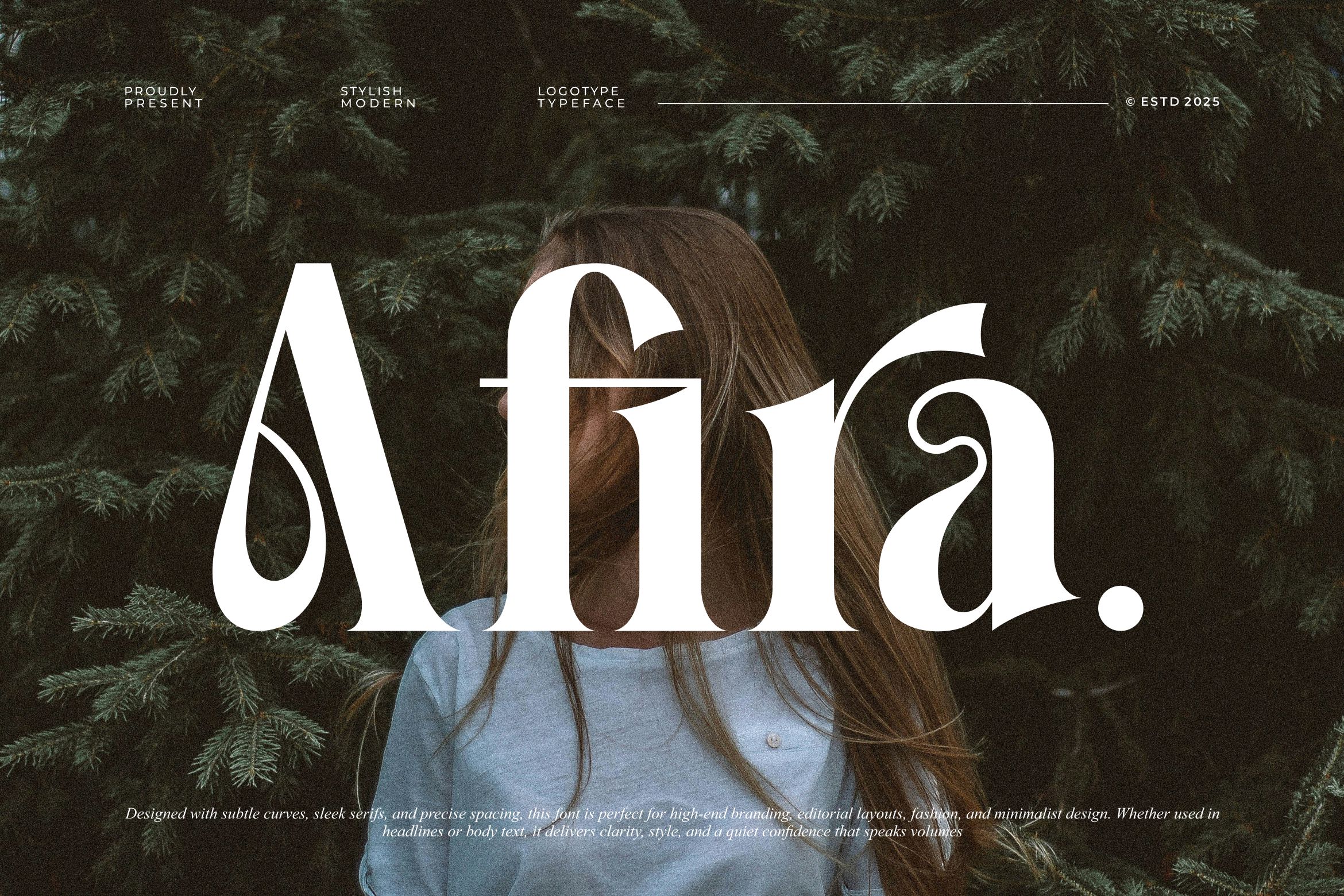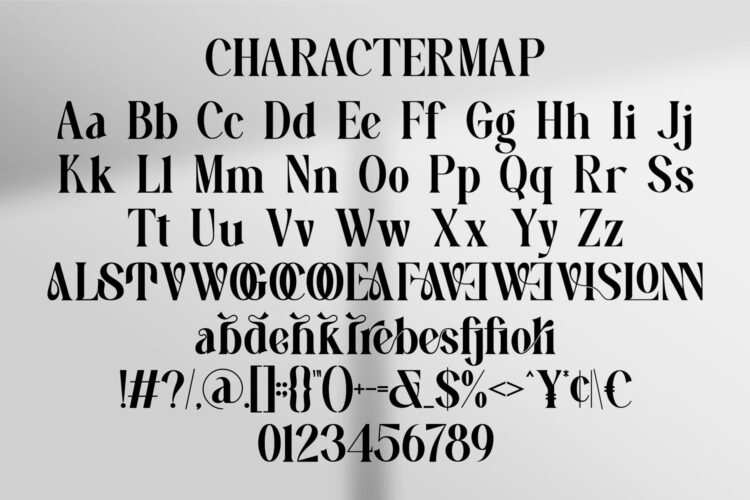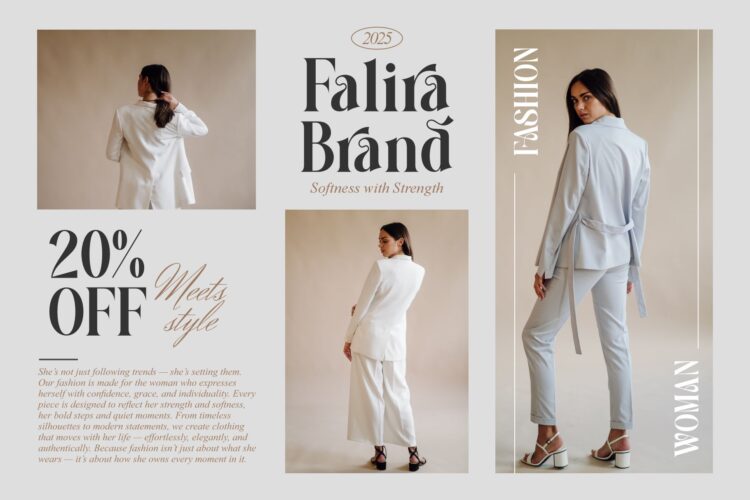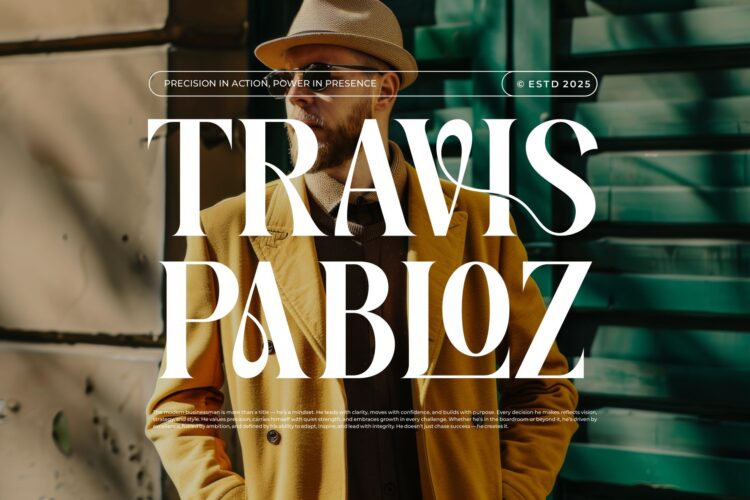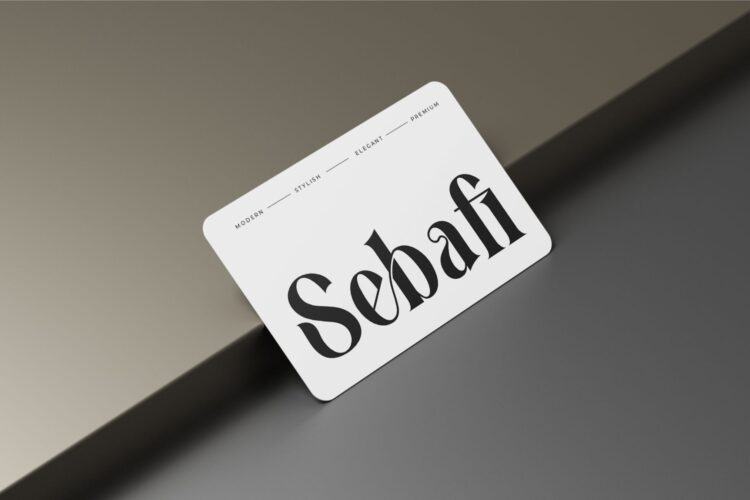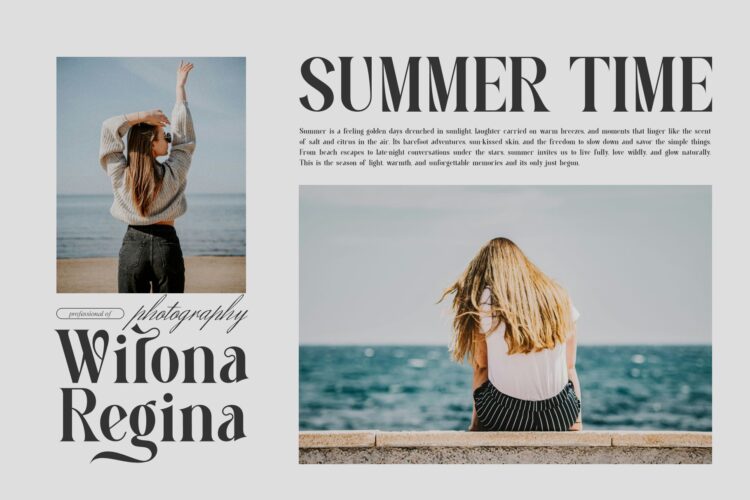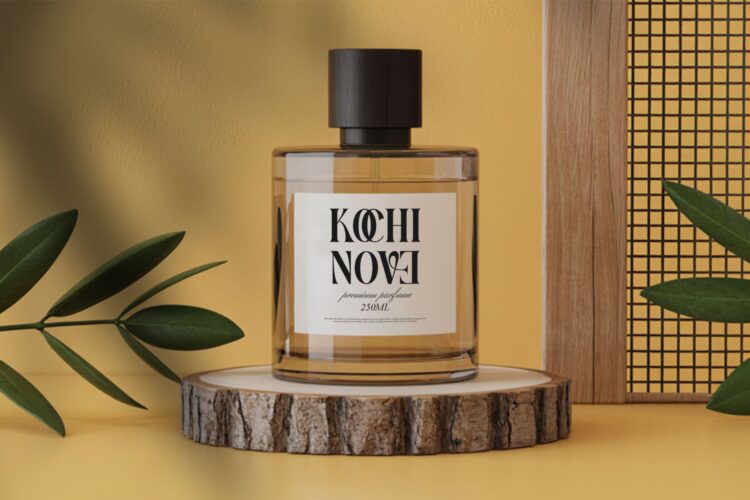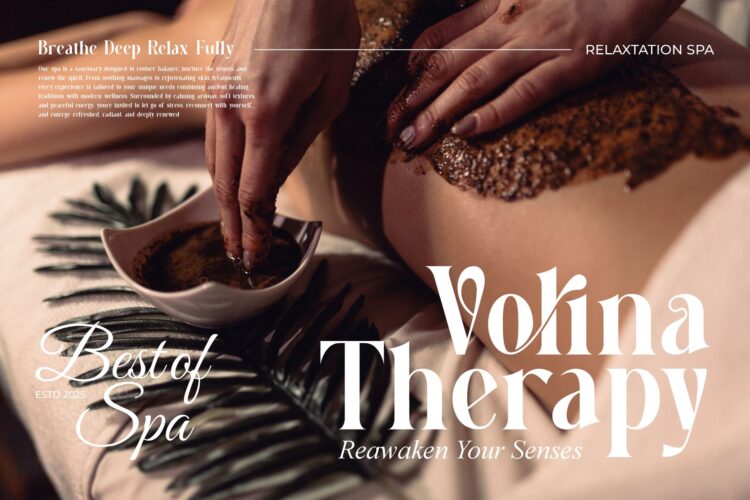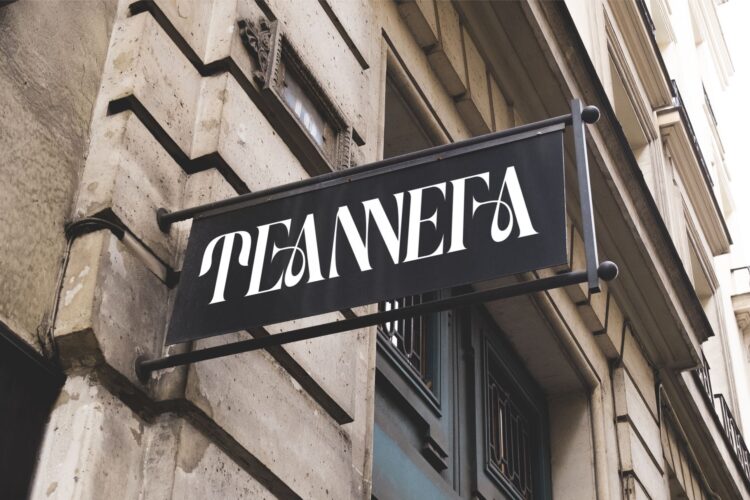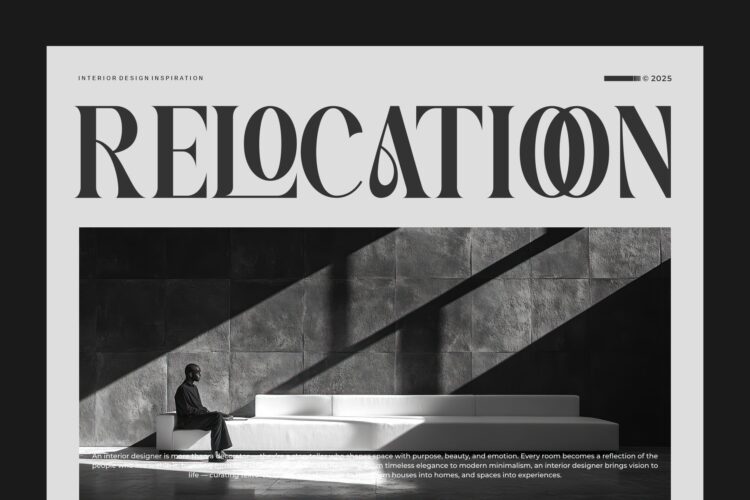
Afira
Afira Serif is a modern type for all branding and logo designs. This modern Serif font has a beautiful character. This font is suitable for invitation card designs, cool logos, movie titles, movie names, business cards, book titles, brand names, and various other designs. Afira Serif is a smooth serif font that exudes sophistication and the moment. Its stylish ligatures make this font a perfect partner for any project.
Afira || Modern Serif Font